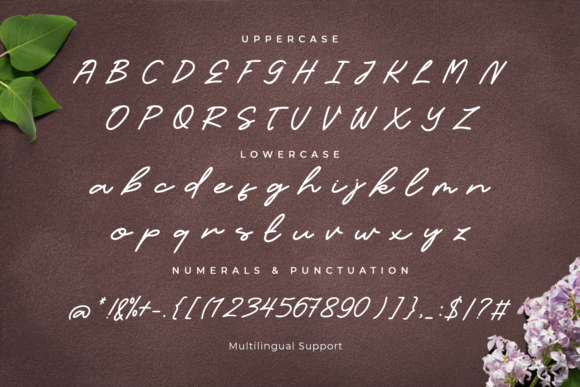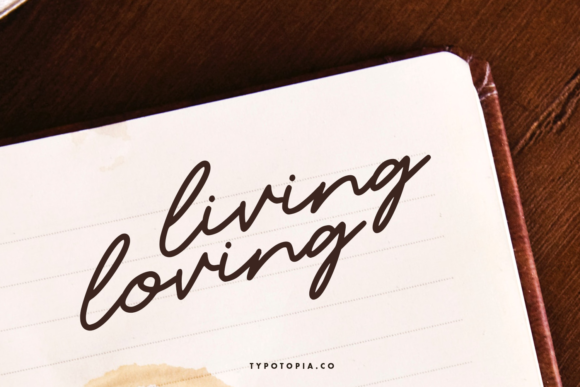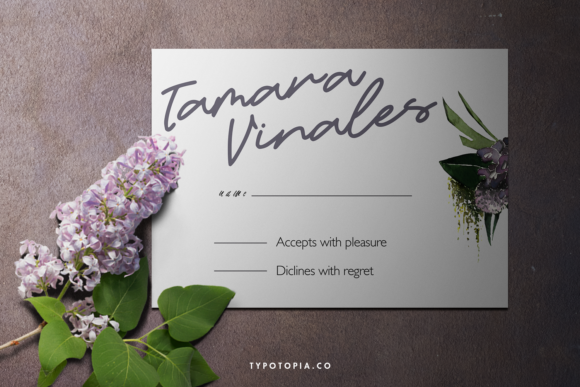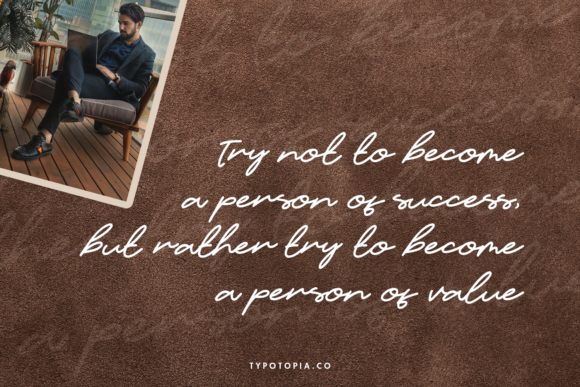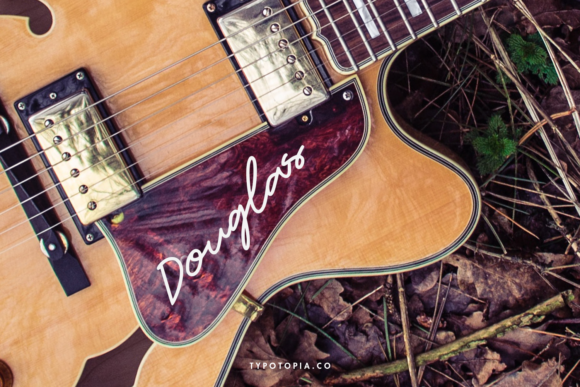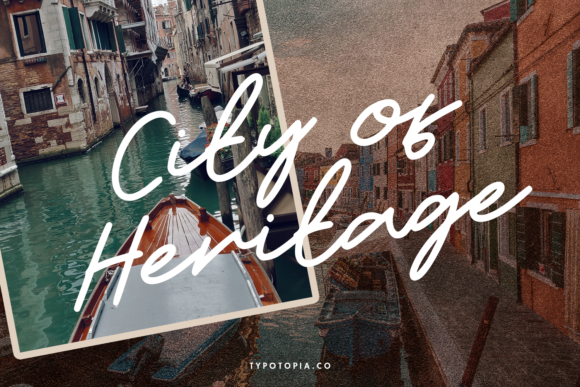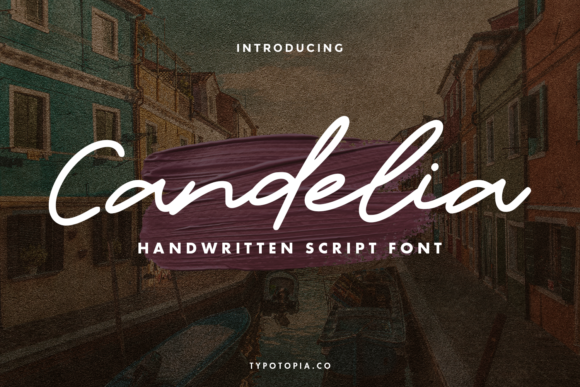
Candelia Font: Elevate Your Designs with Elegance and Sophistication
In the world of typography, few fonts manage to strike a balance between classic elegance and modern flair. Candelia, an exquisite handwritten font, is one such gem that has captured the hearts of designers and crafters alike. With its roots in traditional calligraphy, Candelia brings a touch of sophistication to any project, making it a true favorite among typography enthusiasts.
The Story Behind Candelia
Candelia is more than just a font; it’s a masterpiece that combines the fluidity of handwriting with the precision of digital design. Its creation is a testament to the art of blending traditional calligraphic techniques with contemporary digital design principles. The result is a font that feels both luxurious and approachable, perfect for projects that demand a high level of elegance and personality.
Design Characteristics of Candelia
Candelia boasts a range of design characteristics that set it apart from other fonts. Its letters are meticulously crafted to maintain a classy, calligraphic feel while exuding a sense of modernity and freshness. The strokes are fluid and dynamic, with subtle variations in line width that mimic the natural flow of handwriting. This gives Candelia a unique charm that is both captivating and versatile.
Key Features of Candelia Font:
- Handwritten Elegance: Candelia’s essence lies in its beautiful, handcrafted letters that bring a personal touch to any design.
- Contemporary Appeal: Despite its calligraphic roots, Candelia feels remarkably contemporary, making it suitable for a wide range of modern designs.
- Versatility: From wedding invitations and branding materials to digital content and packaging, Candelia can elevate any project with its sophisticated charm.
- Easy to Read: Candelia strikes a perfect balance between stylistic flair and readability, ensuring your message is conveyed with elegance and clarity.
Applications of Candelia Font
The versatility of Candelia makes it an excellent choice for various design projects. Here are some popular applications:
1. Wedding and Event Design
Candelia’s romantic and elegant feel makes it perfect for wedding invitations, save-the-date cards, and event branding. It sets the tone for a sophisticated and memorable occasion.
2. Branding and Packaging
For businesses looking to convey luxury, sophistication, and a personal touch, Candelia is an excellent choice. It works beautifully for logos, product packaging, and marketing materials.
3. Digital Content
Candelia can also elevate digital content, including blog headers, social media graphics, and website titles. Its unique charm can help brands stand out in a crowded digital landscape.
Tips for Using Candelia Effectively
- Pair with Neutrals: Candelia’s elegance shines best when paired with neutral backgrounds or fonts. This ensures it remains the focal point of your design.
- Experiment with Sizes: Don’t be afraid to vary the font size to create visual hierarchy and emphasize key messages.
- Customize: Depending on the project, consider adding subtle effects or colors to Candelia to enhance its appearance without overpowering its natural beauty.
Candelia is more than just a font; it’s a design statement that can elevate your projects to new heights of elegance and sophistication. Whether you’re a designer, crafter, or simply a typography enthusiast, Candelia offers a world of creative possibilities. With its exquisite handwritten design, contemporary appeal, and versatility, Candelia is poised to become your next favorite font. So, fall in love with Candelia and discover how it can transform your designs into timeless pieces of art.